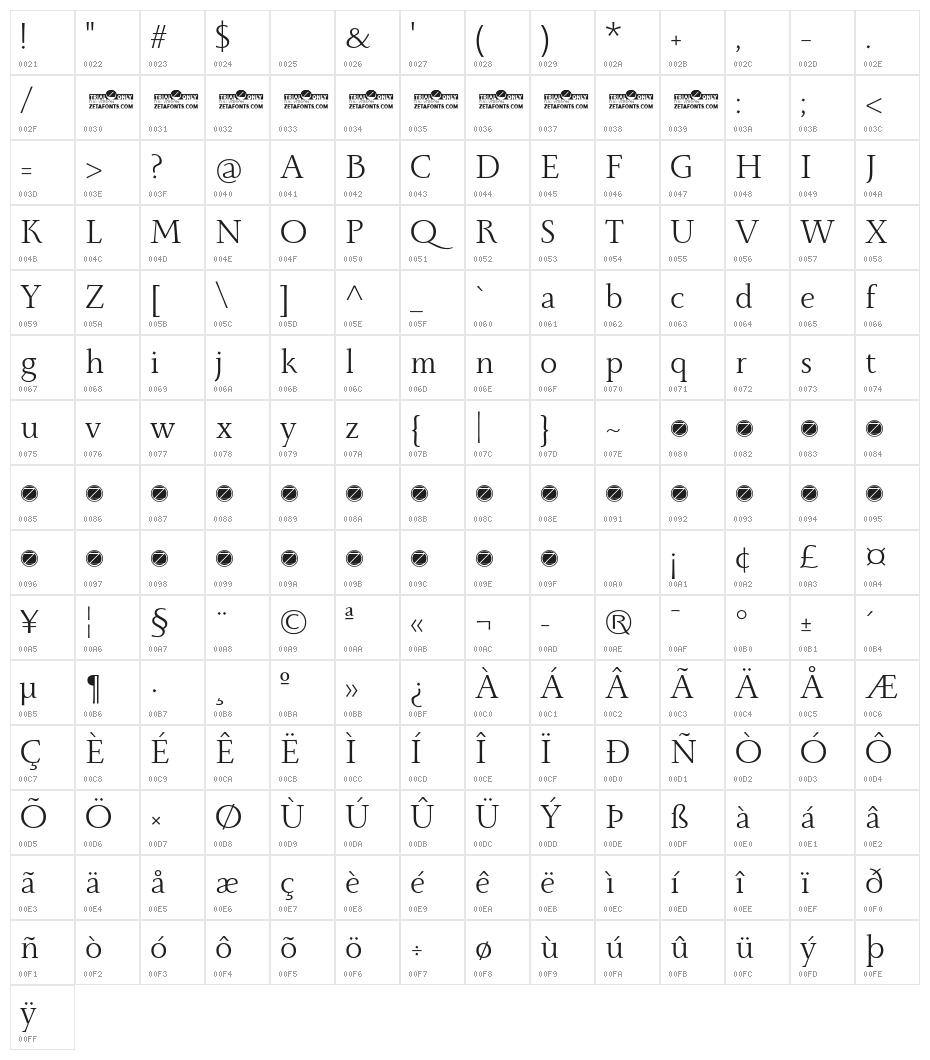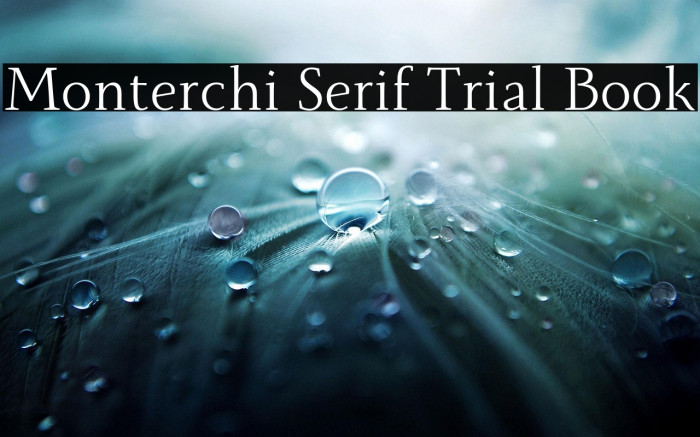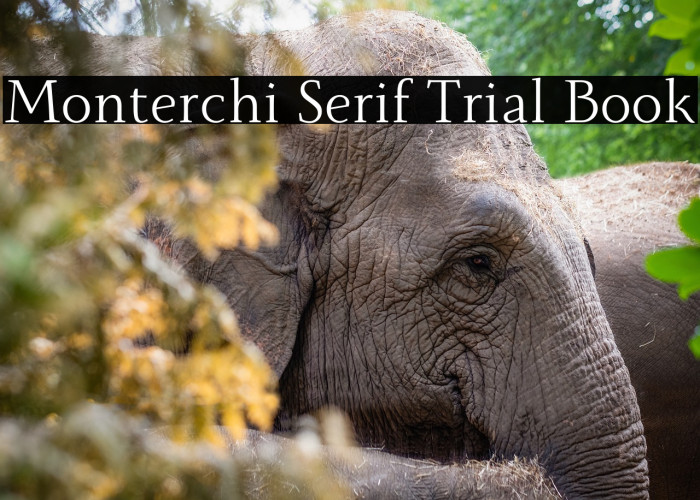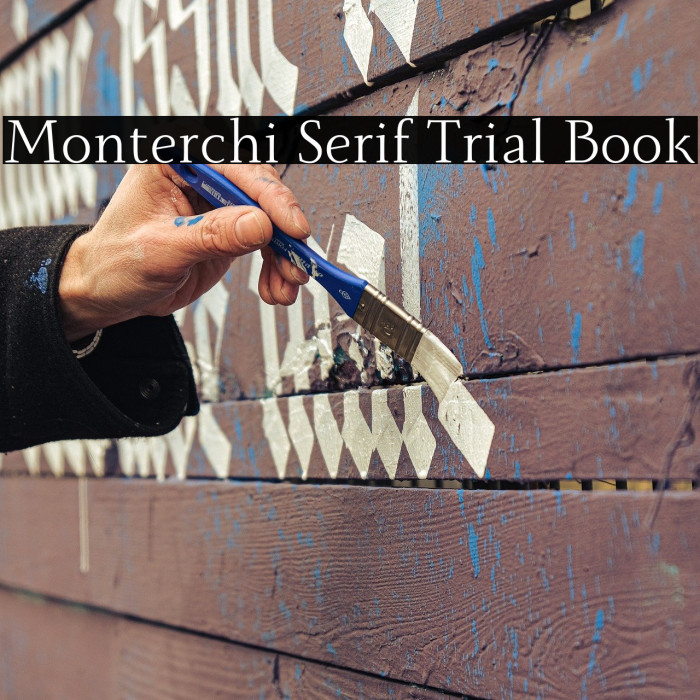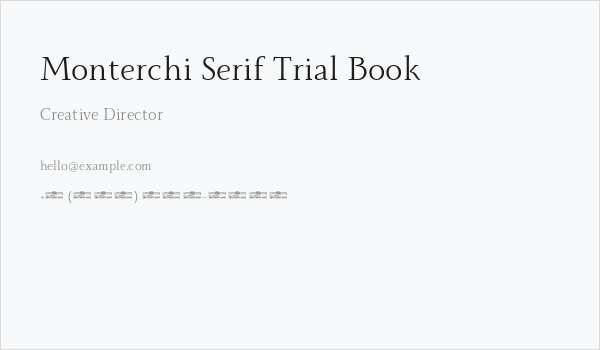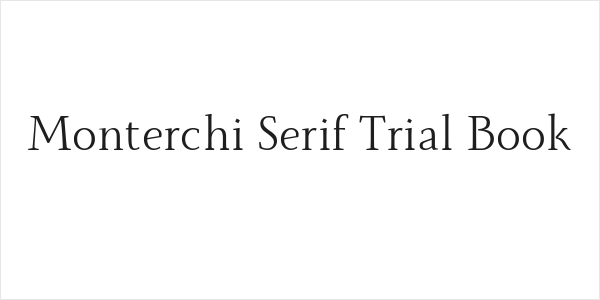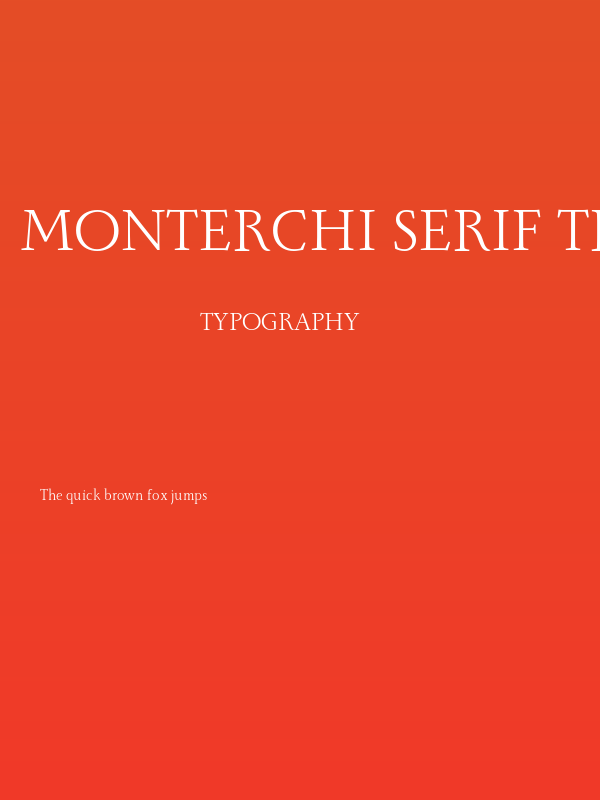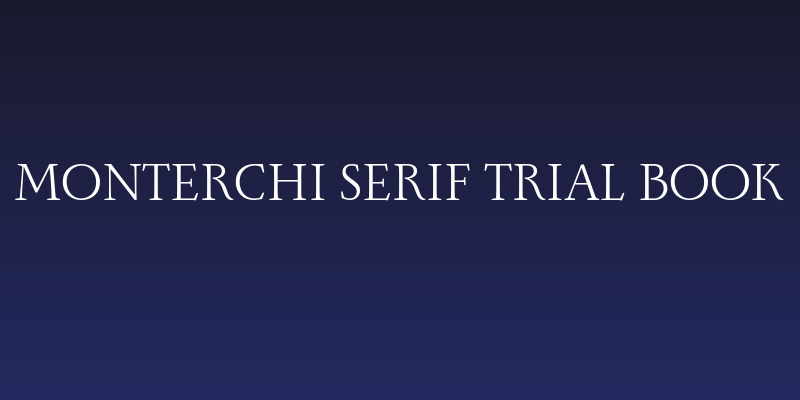
Monterchi Serif Trial Book Font
Monterchi Serif Trial Book Description
This serif font exudes a classic elegance with its refined and sophisticated letterforms. The uppercase letters are tall and stately, featuring subtle curves and sharp serifs that add a touch of formality. The lowercase letters maintain a harmonious balance, with smooth transitions and a slightly more rounded appearance. The numerals are clear and distinct, ensuring readability. Special characters are thoughtfully designed, maintaining the overall aesthetic. This font is ideal for projects that require a traditional yet stylish look, offering versatility across various design applications.
Overall StyleClassic
Proposed ProjectsIdeal for book covers, editorial design, formal invitations, and branding projects that require a touch of sophistication.